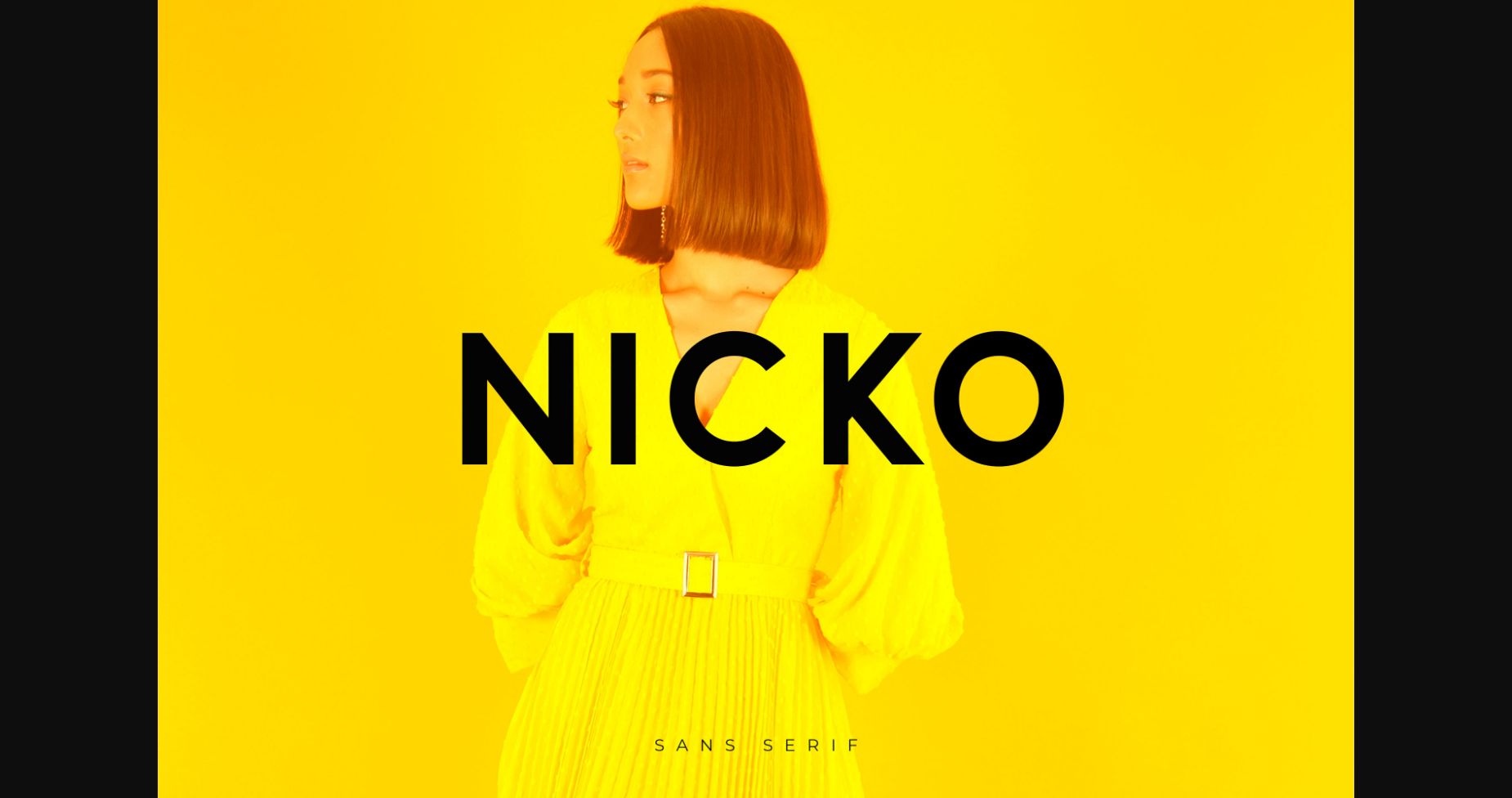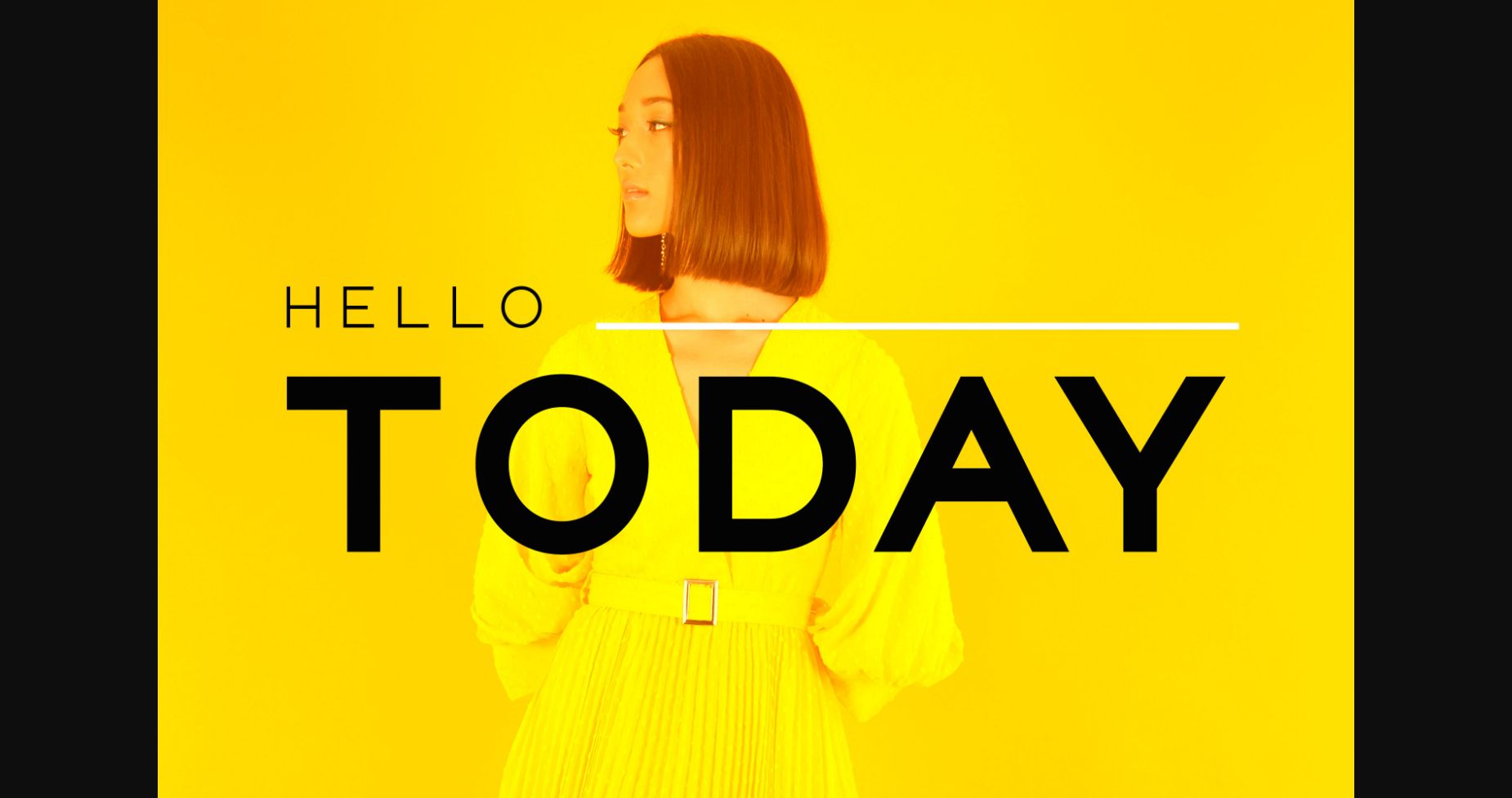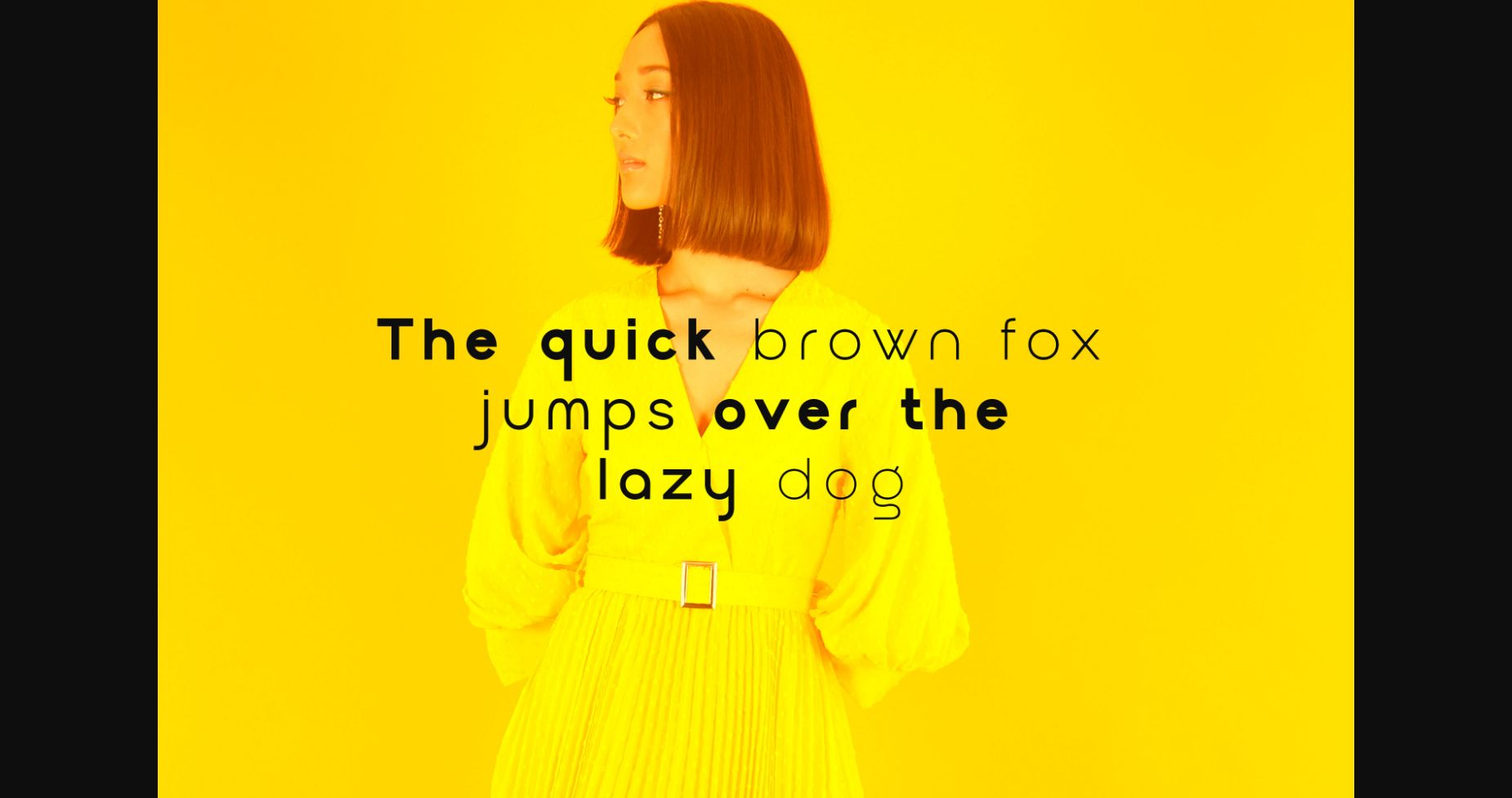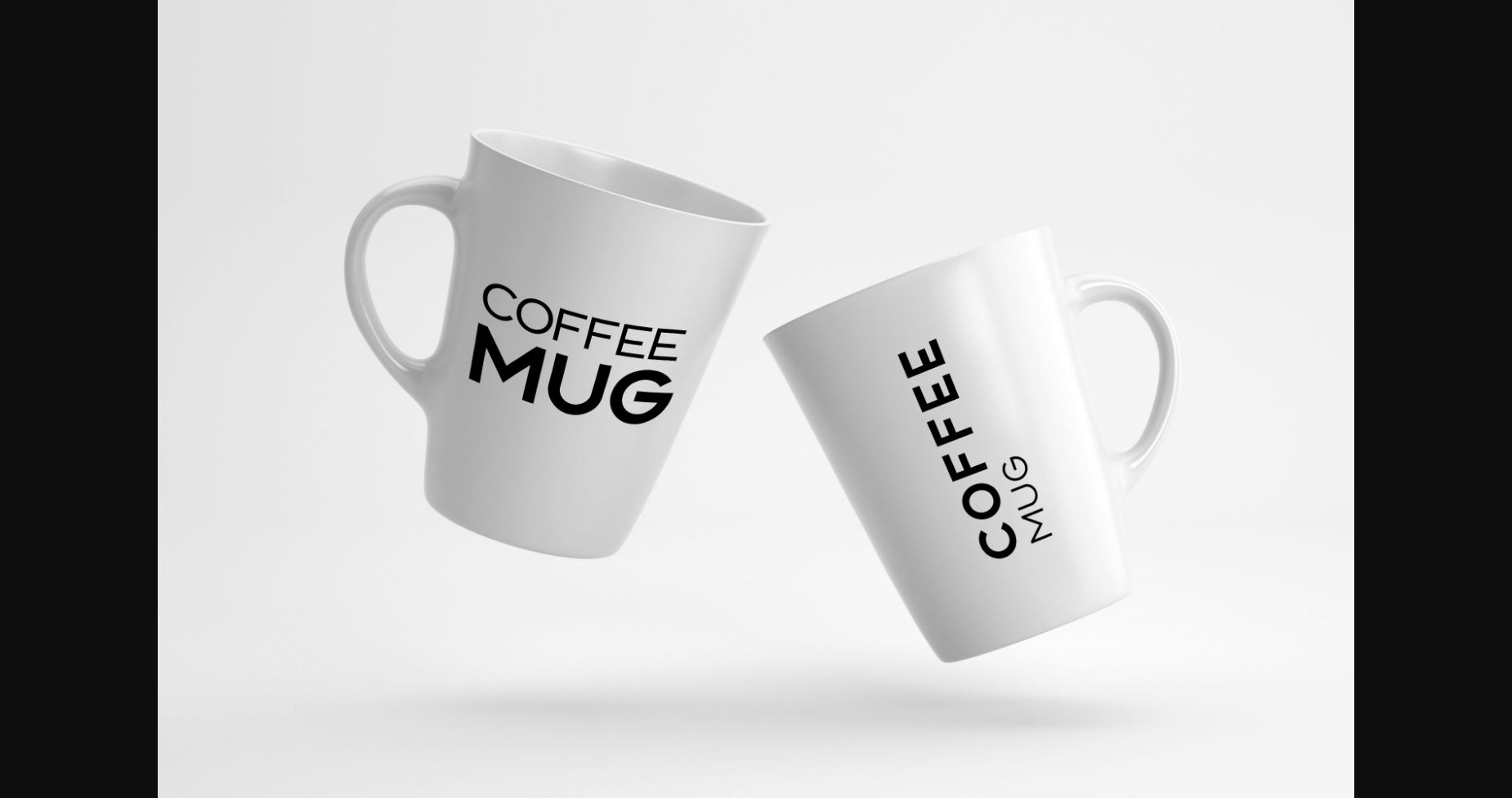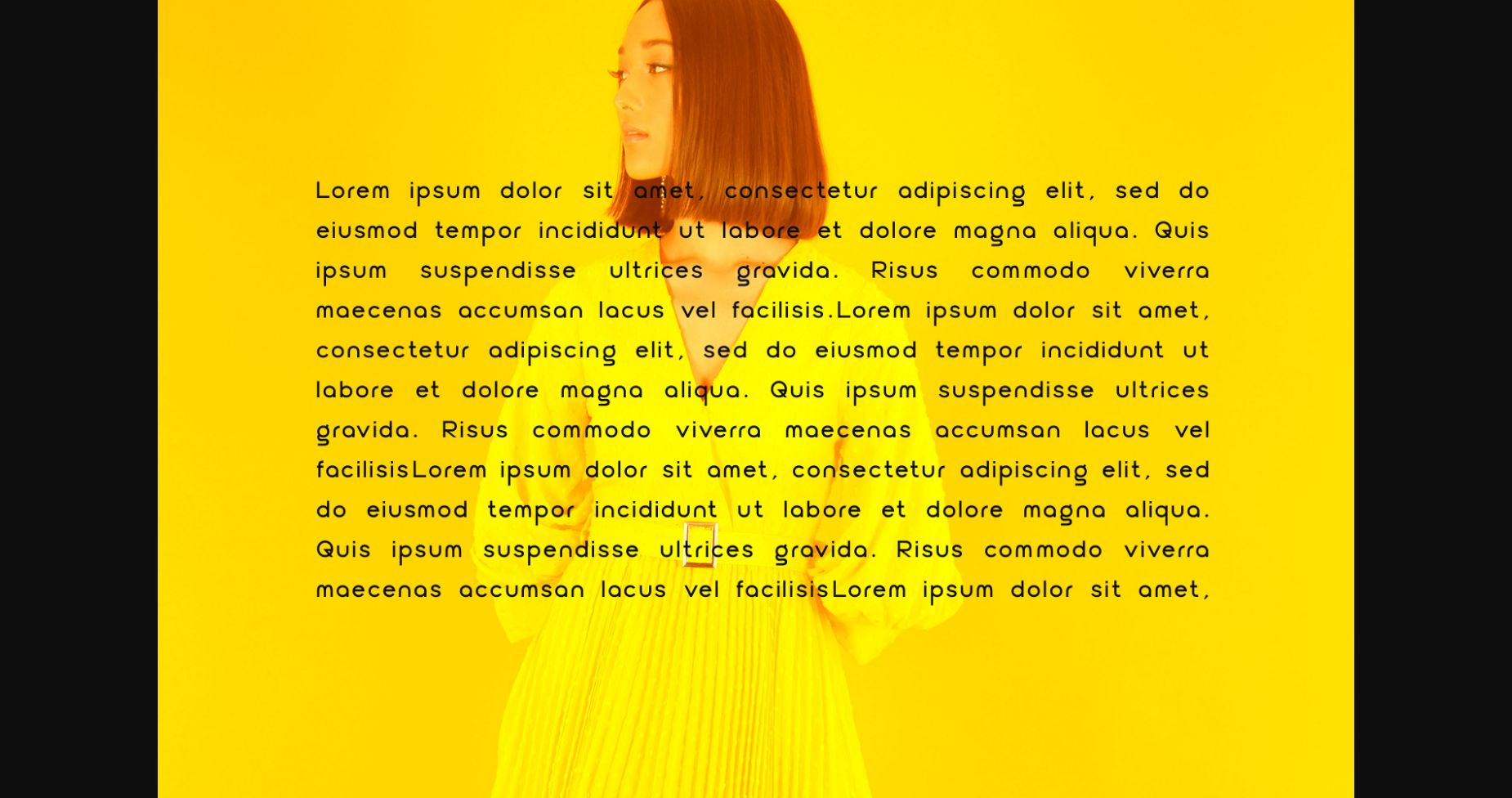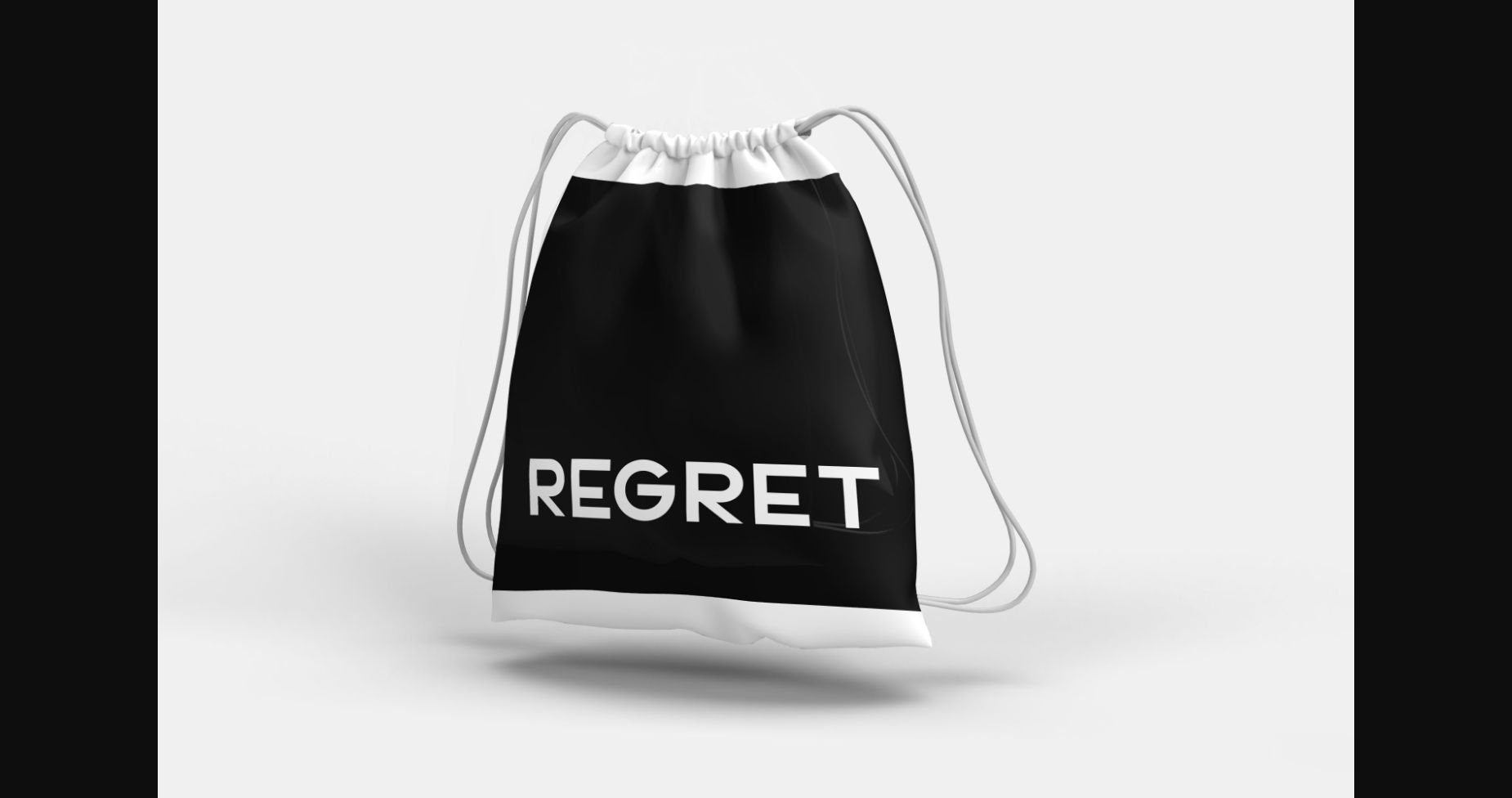
HomeSans Serif FontsNicko Font Sans Serif Fonts Nicko Font FacebookXPinterestWhatsApp 1 of 8 ... Nicko Font Poster 2... Nicko Font Poster 3... Nicko Font Poster 4... Nicko Font Poster 5... Nicko Font Poster 6... Nicko Font Poster 7... Nicko Font Poster 8... About Nicko Font Nicko is a clean and neat sans serif font. Add it confidently to your favorite creations and let yourself be amazed by the outcome generated. DOWNLOAD NOW People also explored Saturas Font Dinosaur Font Asthenom Font Santa Cute Font Avatar Eastwood Font Glamore Font Font Cloudy Sky Font Merry Christmas Font 349 0 TagsNickoNicko Font Previous articleRainer FontNext articleMetaverse Font LEAVE A REPLY Cancel reply Comment: Please enter your comment! Name:* Please enter your name here Email:* You have entered an incorrect email address! Please enter your email address here Website: Save my name, email, and website in this browser for the next time I comment. Personal Use Free Bebas Neue Font Personal Use Free Read more about this font Special Day Personal Use Free Read more about this font Befindisa Personal Use Free Read more about this font Makeba Font Personal Use Free Read more about this font BLOG The 10 Best Handwriting Fonts to Add Personality to Your Designs 10 of the Best Handwriting Fonts for Adding Personality to Your Designs There will undoubtedly be no other better choice than handwriting fonts to give... To increase your work productivity, choose the most readable fonts. Free vs Paid Fonts: Why Investing in Premium Fonts Is Worth It Transform Your Website: Elevate Your Typography with 7 Best Web Font Generators